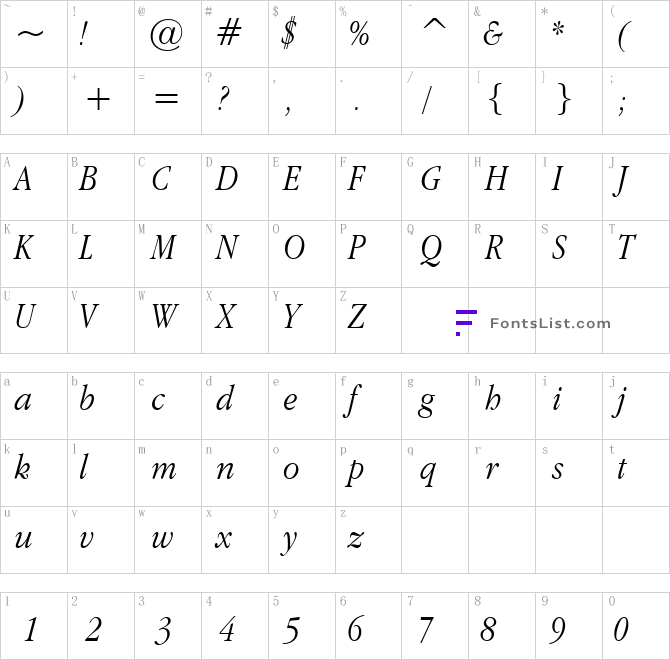
- Font Name:Apple Garamond BT Light
- Subfamily:Apple Garamond Light Italic, Al
- Full Name:Apple Garamond Light Italic BT
Apple-Garamond-Light-Italic-BT.ttf is a very beautiful artistic font, Apple-Garamond-Light-Italic-BT.ttf is widely used in the design and printing of various books and pictures,Apple-Garamond-Light-Italic-BT.ttf has a strong visual impact,Apple-Garamond-Light-Italic-BT.ttf is a commonly used font in newspapers, magazines and books, and is used in posters, e-commerce Poster design, store design, logo design, font design and other fields.Apple-Garamond-Light-Italic-BT.